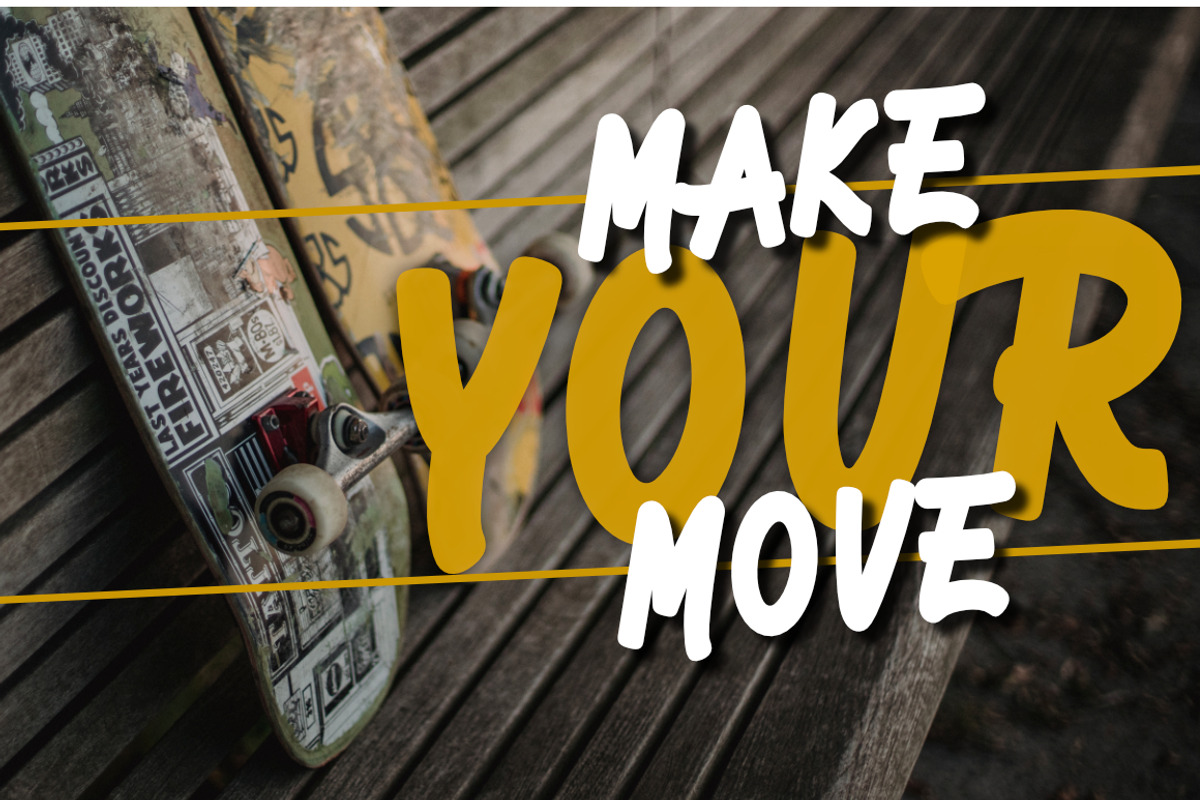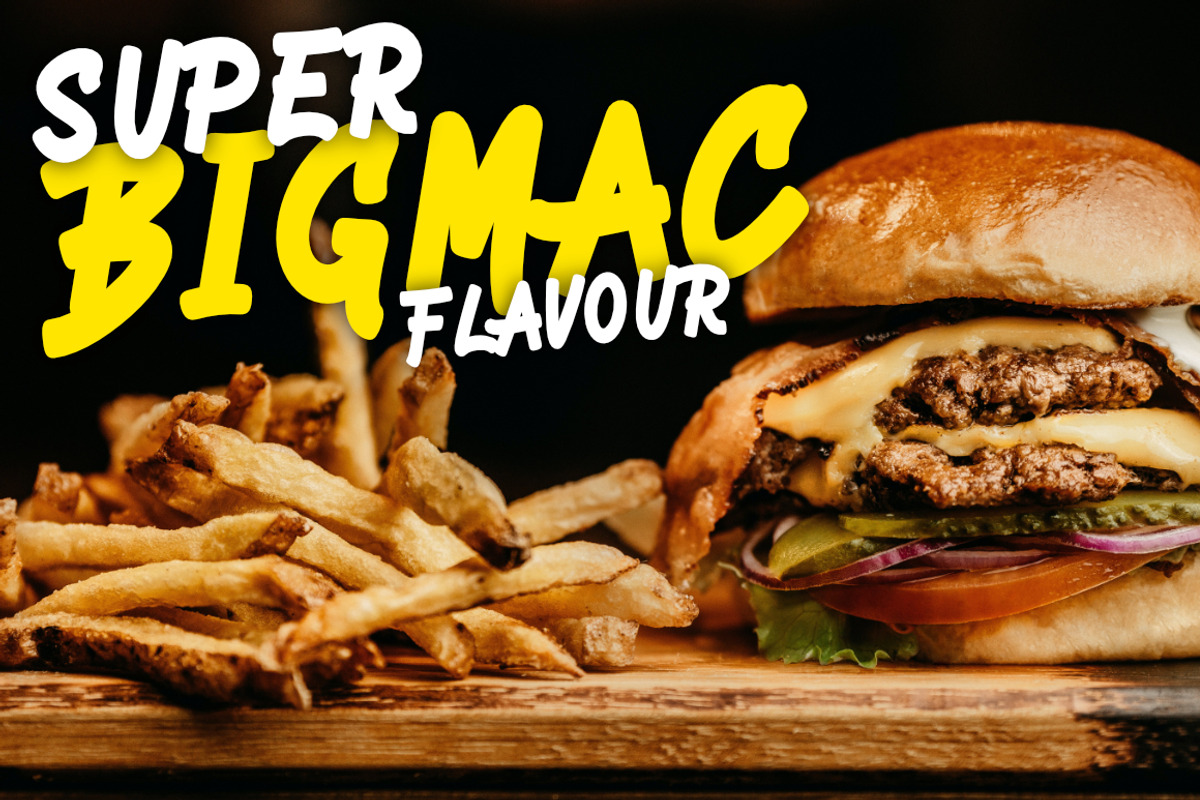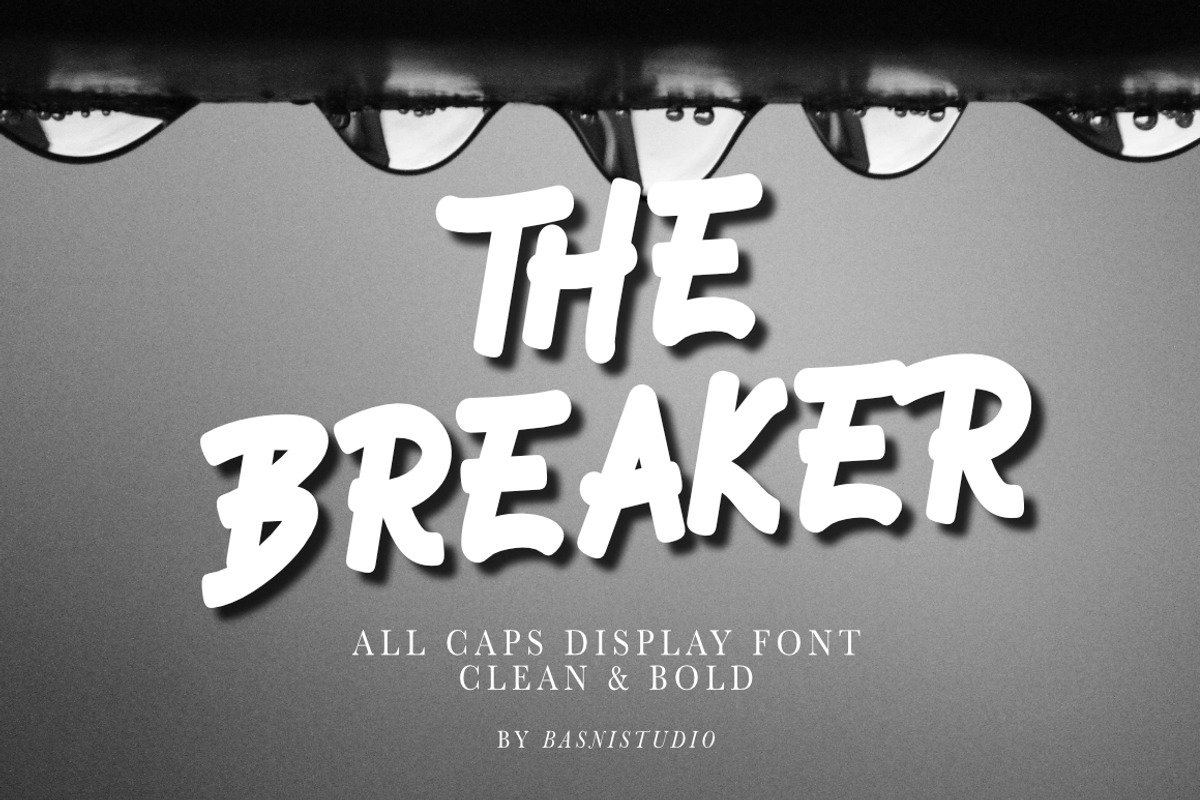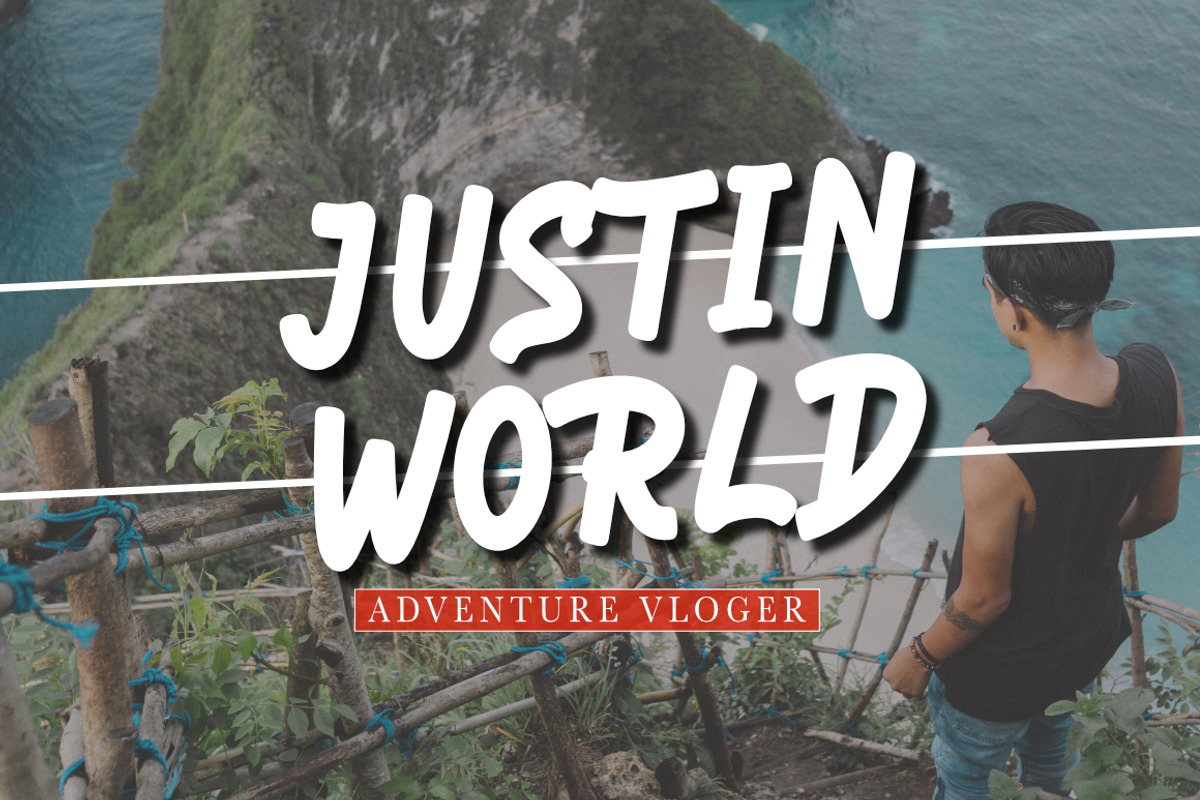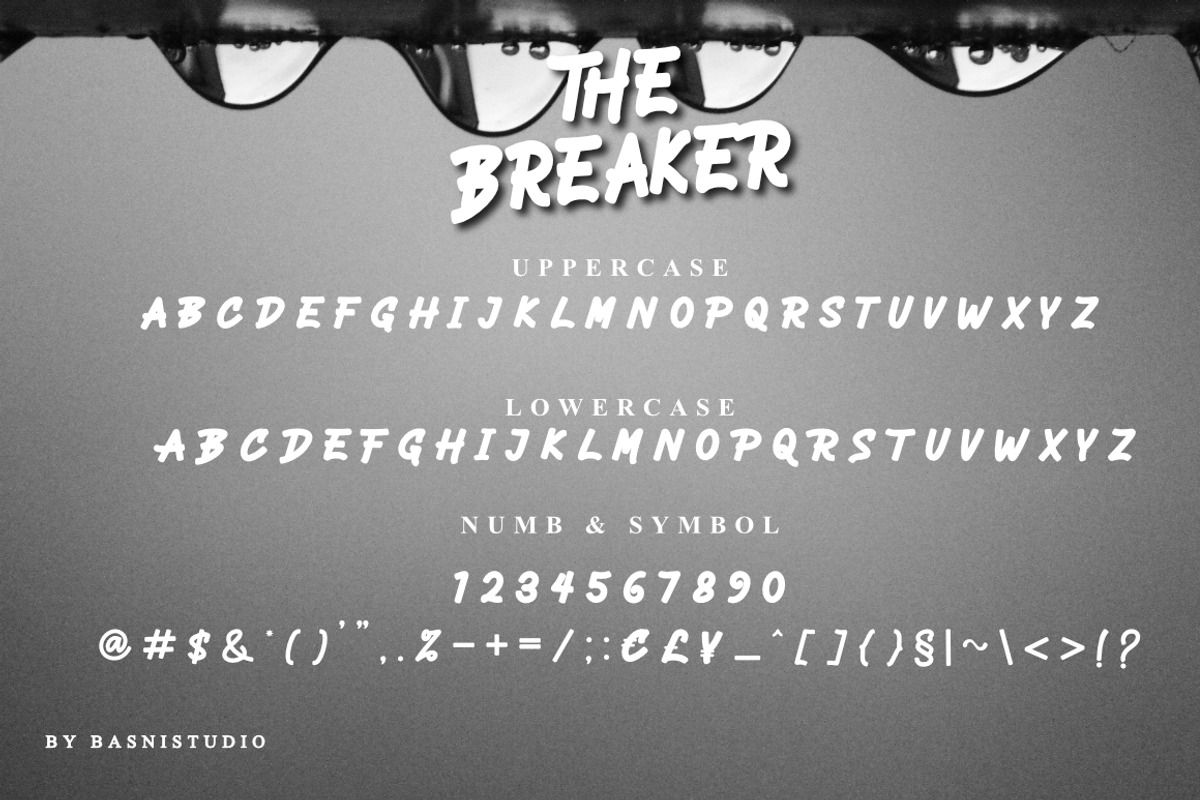
The Breaker is display font
Introducing The Breaker, a Display Font,
The Breaker is display font with natural brush. perfect for branding, websites, and editorial designs. Includes all upper and lower case